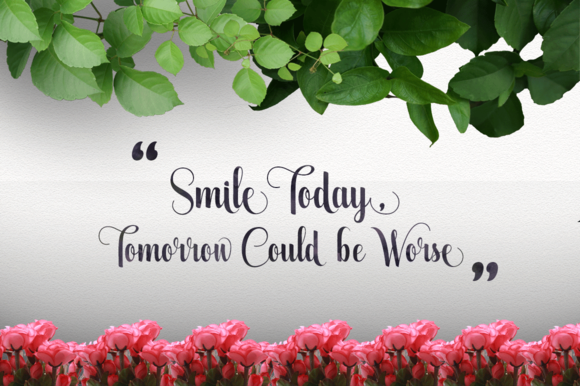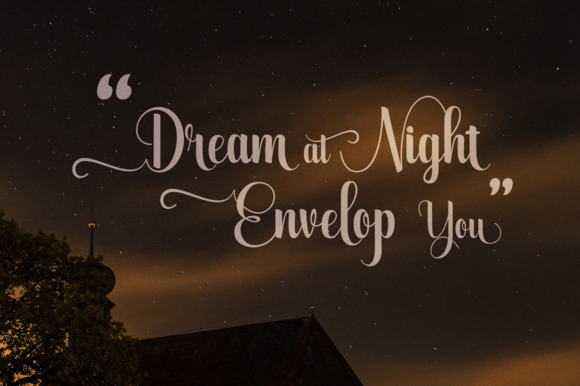
Wolf Bane Bold Font
db-ku.com - Script & Handwritten -- Wolf Bane Bold is a stunning brush script font. This unique elegant font is great for many types of design.